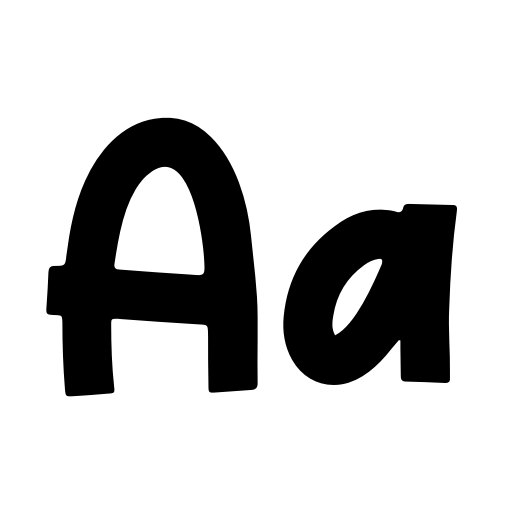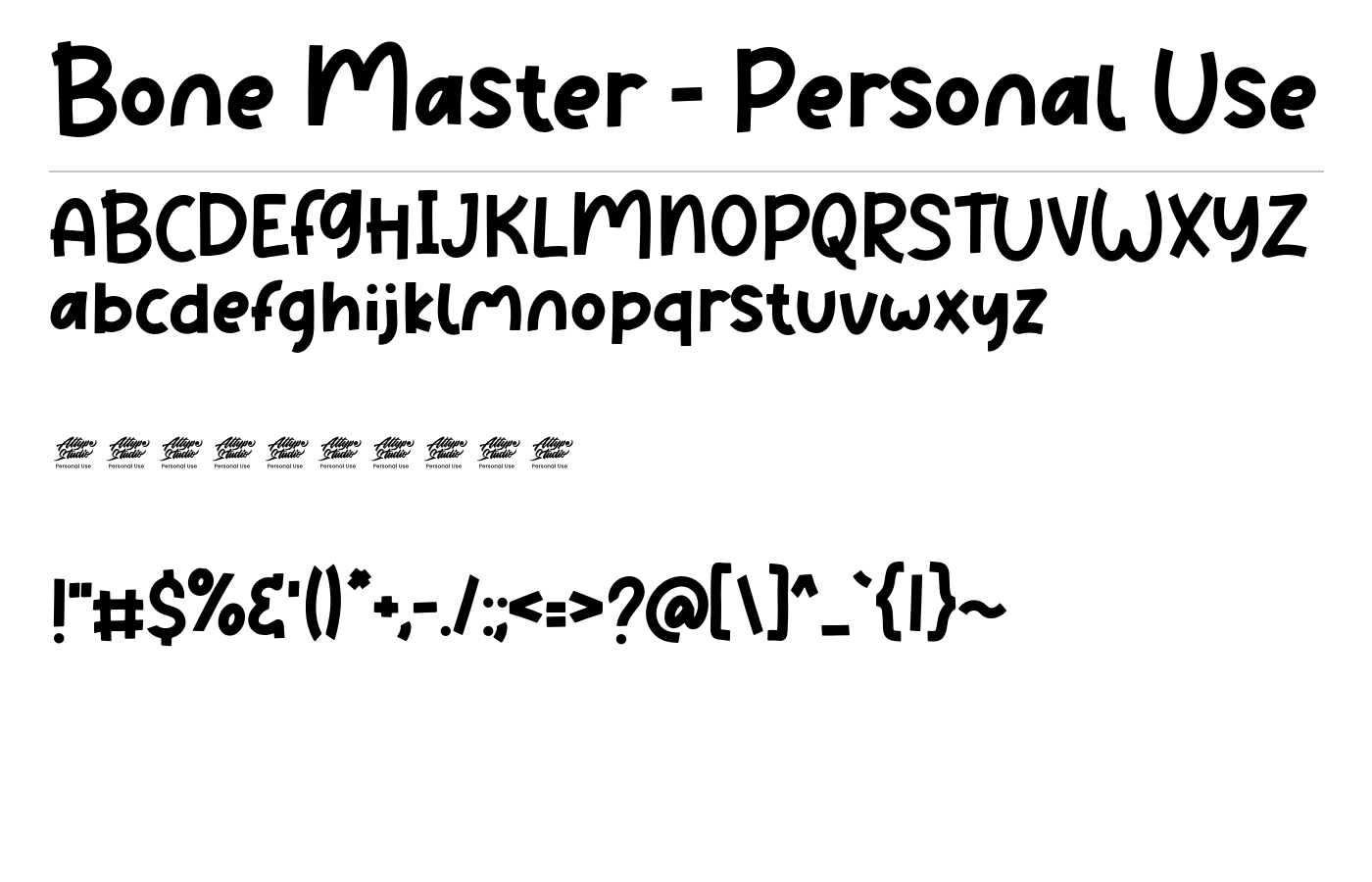
Bone Master is a playful, casual sans serif font with a hand-drawn, slightly irregular style that lends a fun and friendly character. Its bold, upright letterforms have a moderate x-height and uneven stroke widths that create an informal, approachable feel, making it ideal for children's materials, posters, and lighthearted branding. This font works best where a charming, creative look is needed to engage and entertain audiences.